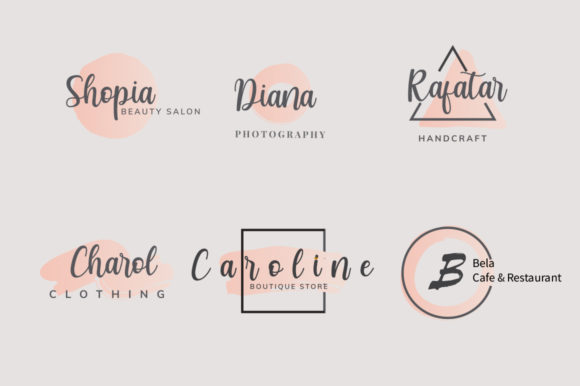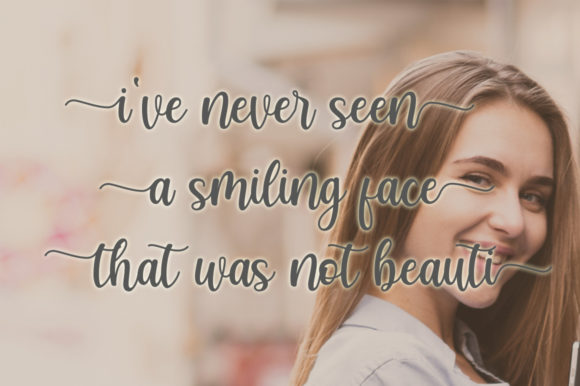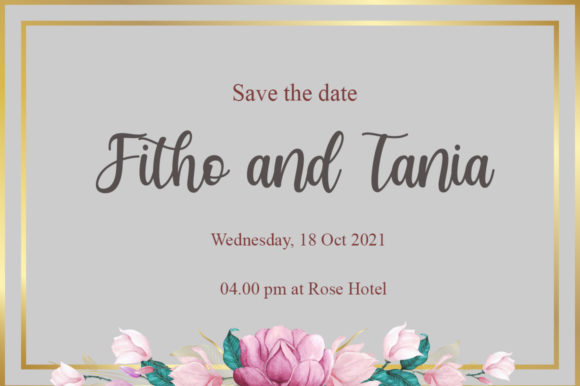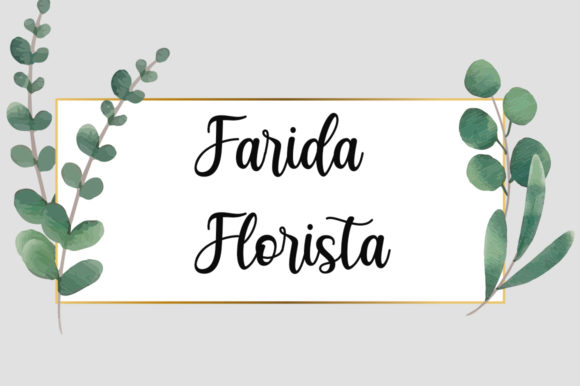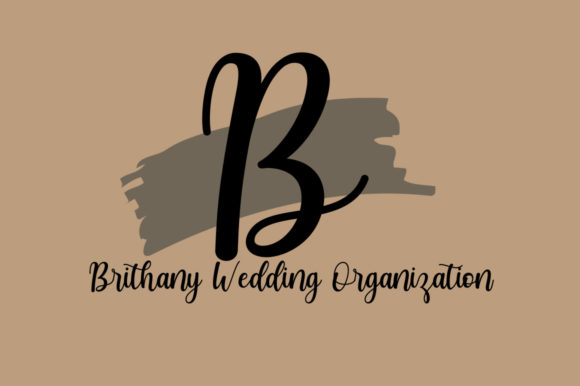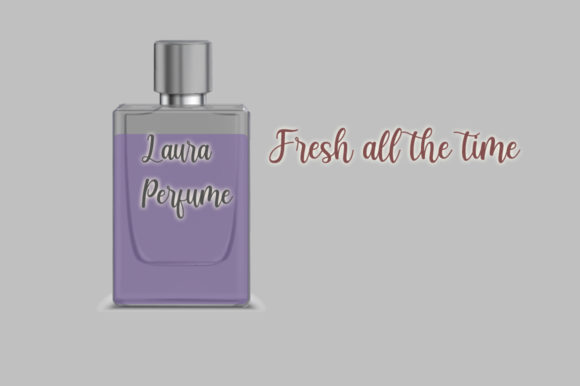
Introduction to Marcella Font
Have you ever found yourself in the middle of a creative project, staring at a blank page, and suddenly, the perfect font pops into your mind? For designers, it’s a moment of pure joy – the moment when the design starts to come together, and all the pieces fall into place. For me, that moment came when I discovered the stunning Marcella Font.
This high-quality font is a treasure trove of elegance and charm, making it a valuable addition to any design project. With its smooth lines, gorgeous glyphs, and stunning alternates, Marcella Font is perfect for creating beautiful wedding invitations, thank you cards, quotes, and more. And the best part? It’s available for free download, complete with a transparent background, making it easy to integrate into your design resource library.
Whether you’re working on a creative project or just need a reliable design resource, Marcella Font is sure to impress. With its versatility and charm, it’s no wonder this font has become a favorite among designers. In this article, we’ll take a closer look at what makes Marcella Font so special and how you can incorporate it into your next design project.
Key Features of Marcella Font
- High-quality, elegant script font with a transparent background, ideal for creative projects and design resources.
- Designed to be versatile, Marcella Font is perfect for a wide range of creative projects, from wedding invitations to branding materials.
- Unique characteristics include its elegant, cursive style and the ability to add a touch of sophistication to any design project.
Honest Review: Marcella Font
- ✨ High-quality font with a modern and elegant design
- ✨ Transparent background, making it easy to use on any creative project
- ✨ Versatile font that can be used for both personal and professional projects
- ⚠️ Limited character set, which might be a issue for more complex designs
- ⚠️ Not all versions of the font are available in bold, italic, or other weights
Overall, I’m impressed with the Marcella Font. It’s a solid addition to any designer’s arsenal, and its high quality makes it a great choice for any creative project. While it may have some limitations, I think it’s well worth the free download.
Tips for Getting the Most Out of Marcella Font
For the best results, use Marcella Font in conjunction with other high-quality design elements. Experiment with different font sizes and styles to create a unique look. Marcella Font is a versatile font that can be used for a variety of creative projects, from business cards to wedding invitations.
Marcella Font is commonly used for wedding invitations, business cards, and marketing materials. Its elegant and sophisticated design makes it perfect for creating high-end designs. With its transparent background, Marcella Font is also great for creating designs with complex backgrounds.